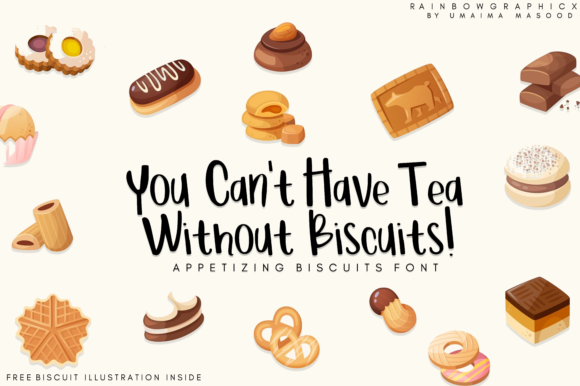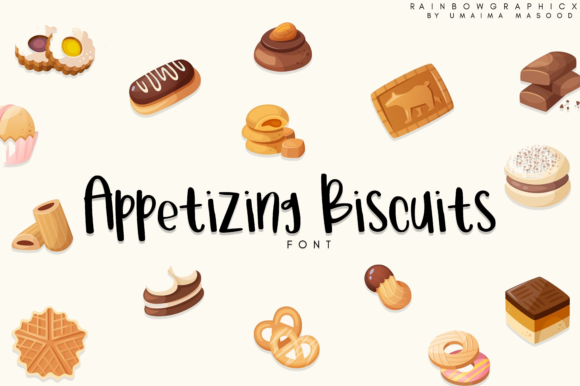
Introducing Appetizing Biscuits Font: Add a Deliciously Charming Touch to Your Designs
Are you looking for a font that can add a unique and tasty flair to your design projects? Look no further than the Appetizing Biscuits font! This truly one-of-a-kind script font is sure to satisfy your creative cravings and leave a lasting impression on your audience.
The Charm of Appetizing Biscuits Font
Appetizing Biscuits is a script font that exudes a cool and charming feel, perfect for designers and crafters who want to add a touch of whimsy to their work. With its flowing lines and curvaceous strokes, this font is sure to make your designs stand out from the crowd. Whether you’re working on a branding project, a craft tutorial, or a digital design, Appetizing Biscuits font is the perfect choice.
Key Features of Appetizing Biscuits Font
- Unique and Tasty Design: Appetizing Biscuits font boasts a truly unique design that is sure to grab attention. Its script style is reminiscent of handwritten notes and adds a personal touch to any design.
- Cool and Charming Feel: This font has a cool and charming feel that is perfect for designers who want to add a touch of whimsy to their work.
- Highly Versatile: Appetizing Biscuits font can be used for a wide range of design projects, from branding and advertising to crafting and digital design.
- Easily Readable: Despite its unique design, Appetizing Biscuits font is easily readable, making it perfect for body text and headlines.
Appetizing Biscuits font is perfect for designers and crafters who want to add a touch of personality to their work. Whether you’re creating a brand identity, a craft tutorial, or a digital design, this font is sure to make your project stand out. Its unique design and charming feel make it perfect for:
- Branding and Advertising: Use Appetizing Biscuits font to create eye-catching logos, advertisements, and marketing materials that will leave a lasting impression on your audience.
- Crafting and DIY Projects: Add a touch of whimsy to your crafting and DIY projects with Appetizing Biscuits font. Use it to create cute and quirky labels, signs, and other embellishments.
- Digital Design: Use Appetizing Biscuits font to add a touch of personality to your digital designs, from social media graphics to website headers.
Tips for Using Appetizing Biscuits Font
Here are some tips for using Appetizing Biscuits font in your design projects:
- Pair it with a Simple Font: Pair Appetizing Biscuits font with a simple font to create a striking contrast and make your design stand out.
- Use it for Headlines and Titles: Use Appetizing Biscuits font for headlines and titles to add a touch of personality to your design.
- Experiment with Colors and Textures: Experiment with different colors and textures to add depth and interest to your design.
| Font Name | Appetizing Biscuits Font |
| Author | RainbowGraphicx |
In conclusion, Appetizing Biscuits font is a truly unique and tasty script font that is sure to add a charming feel to any design project. Its cool and charming design makes it perfect for designers and crafters who want to add a touch of whimsy to their work. With its highly versatile design and easily readable style, Appetizing Biscuits font is the perfect choice for a wide range of design projects.